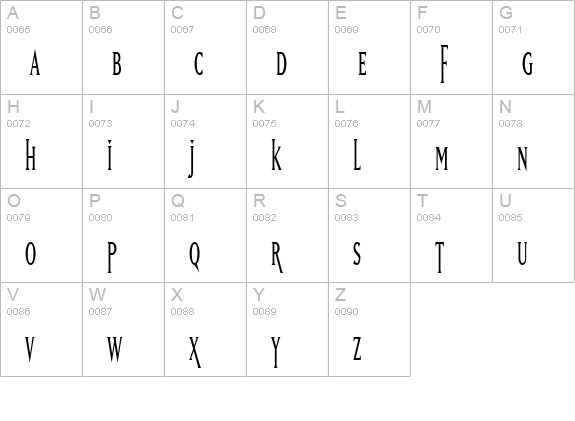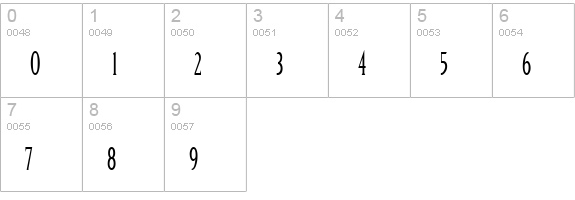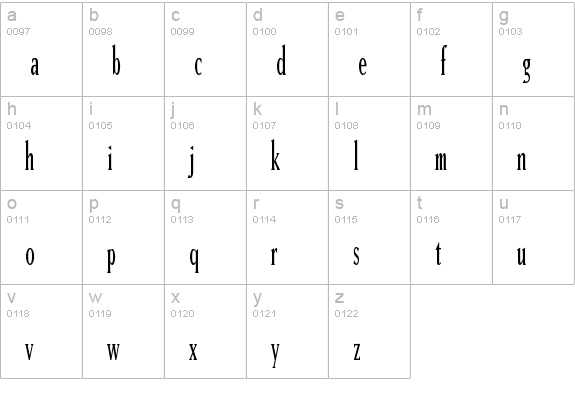
Lionel Font Details
Lionel font is a versatile and modern typeface that exudes elegance and sophistication. Its sleek lines and stylish curves make it perfect for a wide range of design projects, from branding to editorial design. With a timeless yet contemporary feel, Lionel font is sure to make your designs stand out. The best part? Lionel font is completely free to download at FontsMarket.com. Whether you're a designer looking to add a touch of class to your work or a business owner wanting to elevate your brand, Lionel font is the perfect choice. Don't miss out on this amazing opportunity to enhance your design projects with this stunning font. Download Lionel font today and let your creativity shine!